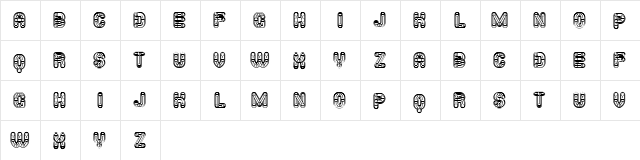
Furious Ride Hollow Book Regular
Design Context for Furious Ride Hollow Book Typeface
Furious Ride Hollow Book is a composed and adaptable typeface that performs quietly and consistently across a wide range of design contexts.
Pro Tip: Use Furious Ride Hollow Book in both headline and body roles to test its range before committing to a single application.